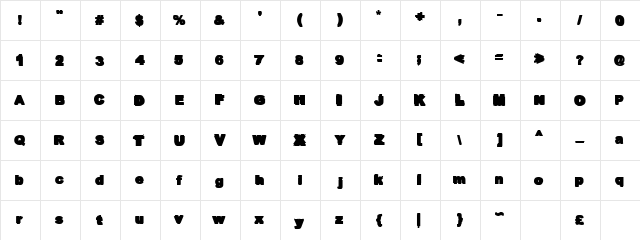
Overprint Black Regular
Design Context for Overprint Black Typeface
Overprint Black is a composed and adaptable typeface that performs quietly and consistently across a wide range of design contexts.